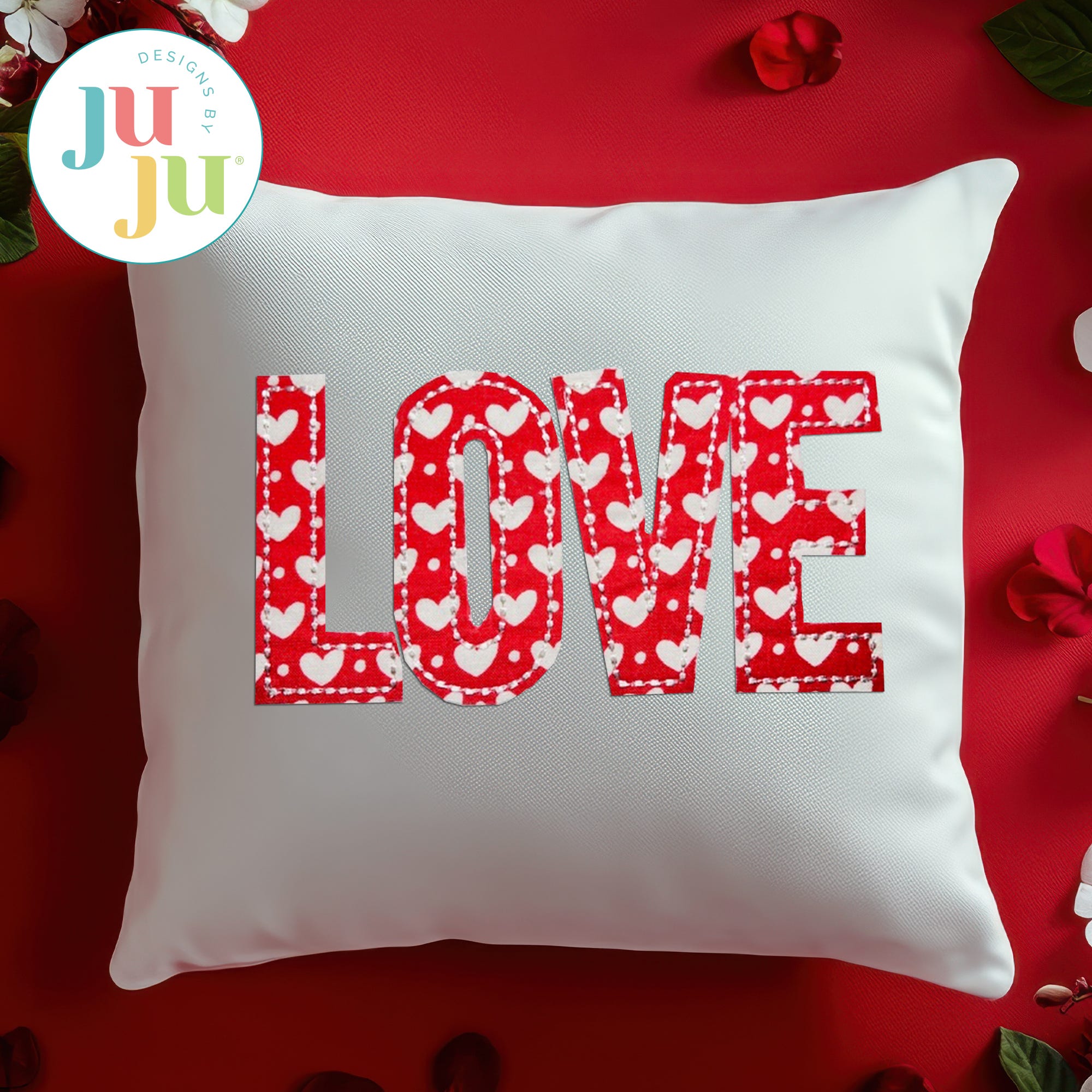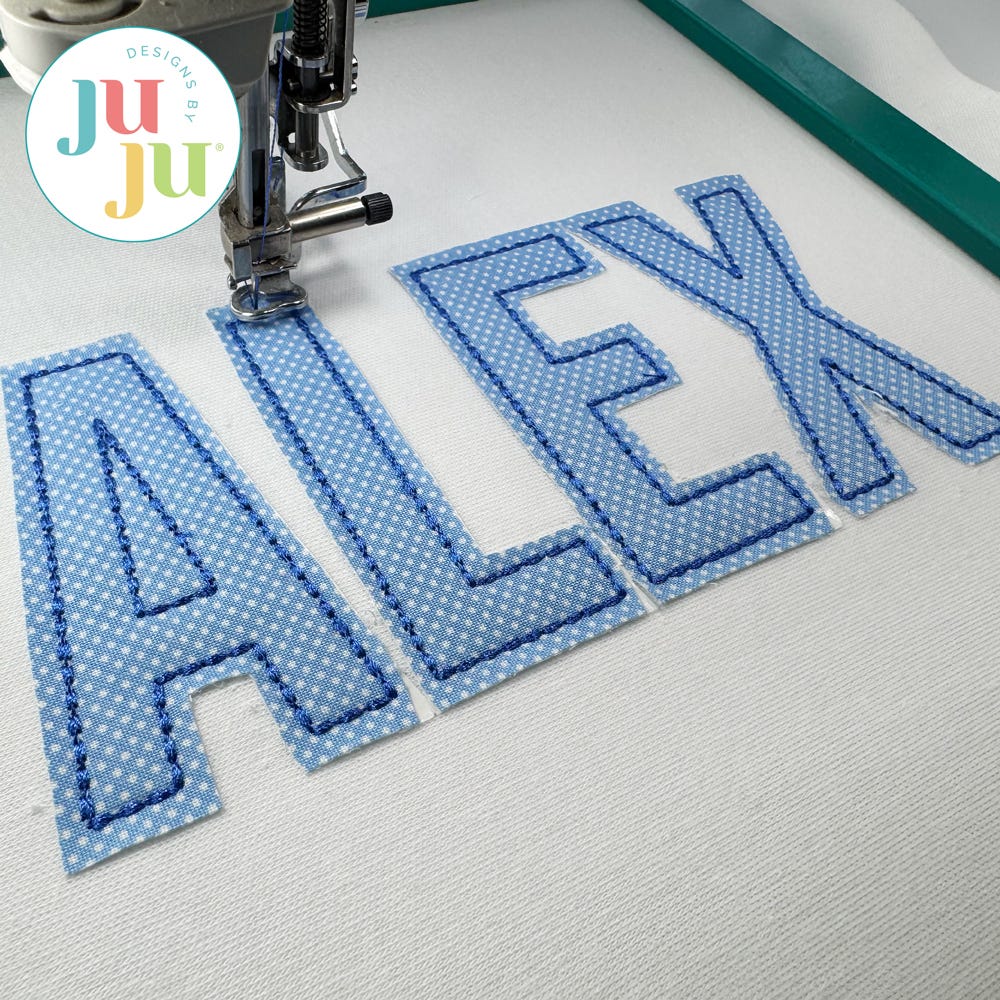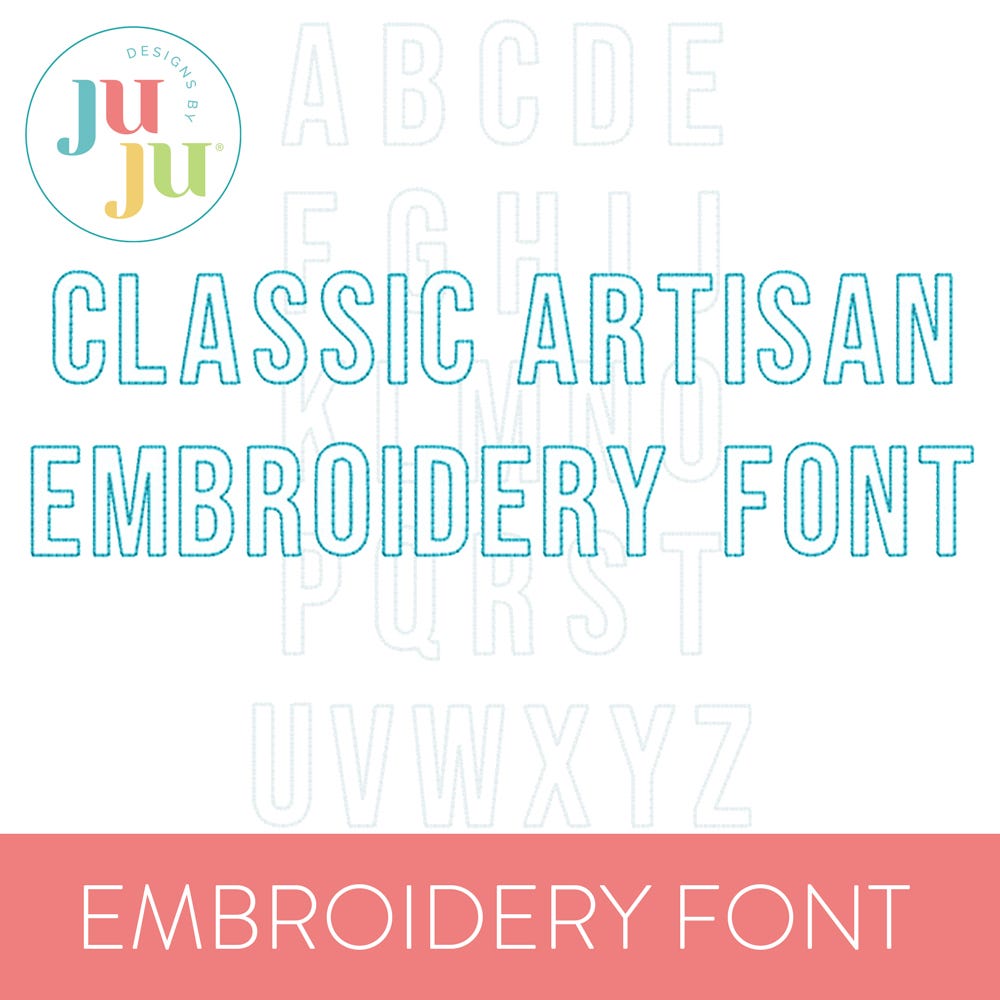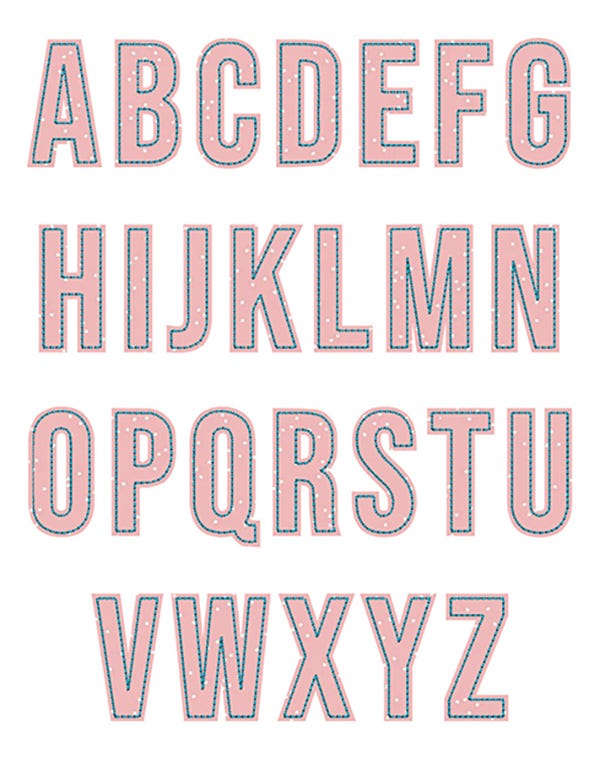
Classic Artisan 1 Bean Stitch Applique Embroidery Font
Craft something with timeless charm using our Classic Artisan Applique Alphabet. Includes capital letters in 9 sizes (2-inch, 2.5-inch, 3-inch, 3.5-inch, 4-inch, 4.5-inch, 5-inch, 5.5-inch and 6-inch).
For maximum stitch efficiency, each design file has only two colorstops: a single running stitch placement step, and bean stitch step that serves as both the tackdown and finishing stitch for both fabrics. We recommend using a fusible product on the applique fabric and neatly trimming 1/8" outside the bean stitch for a polished look. (Alternative idea: layer with flannel, trim with a generous seam allowance and rough up the edges for a raggy look.)